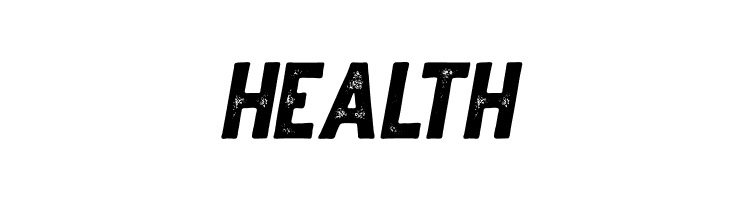
A modern, italicized font with a halftone effect and high contrast strokes.
A bold, italicized font with a rough texture and dynamic style.
A bold, italicized font with a distressed, vintage texture.